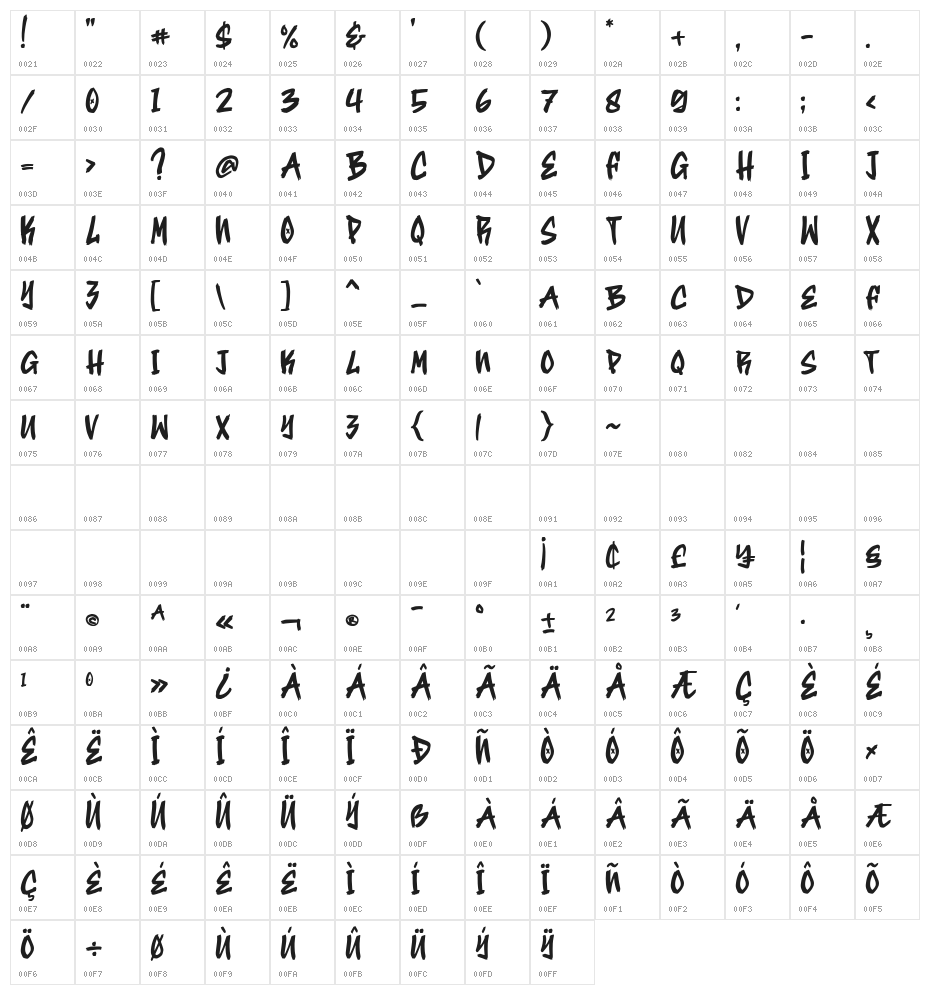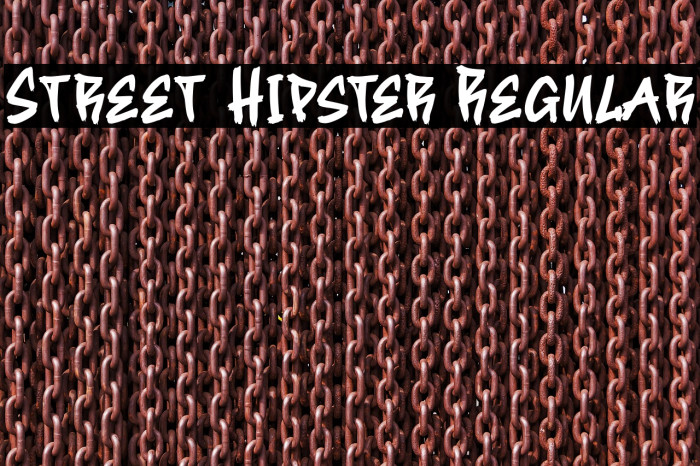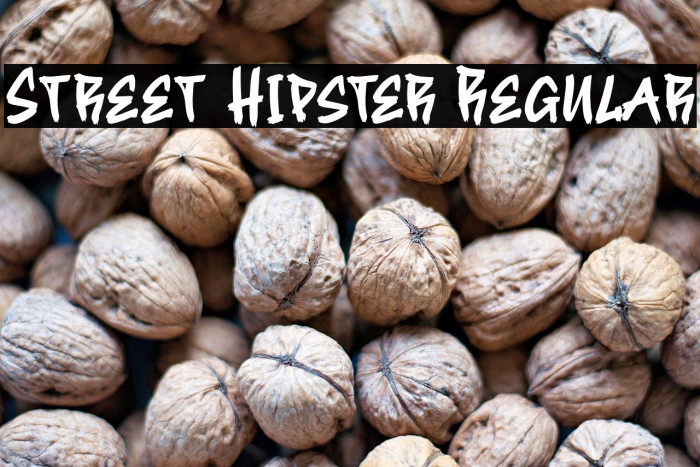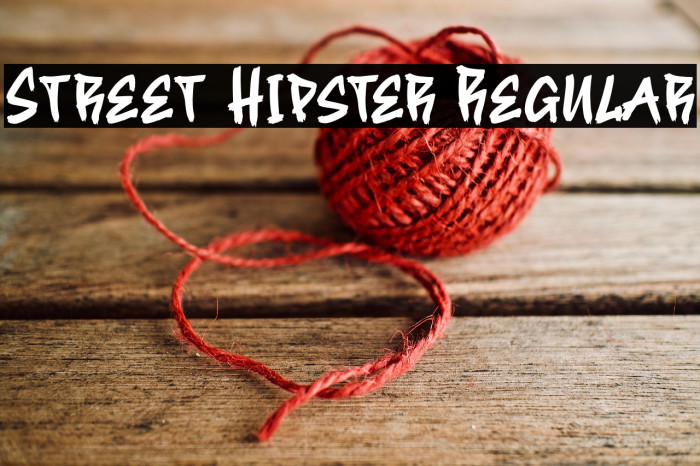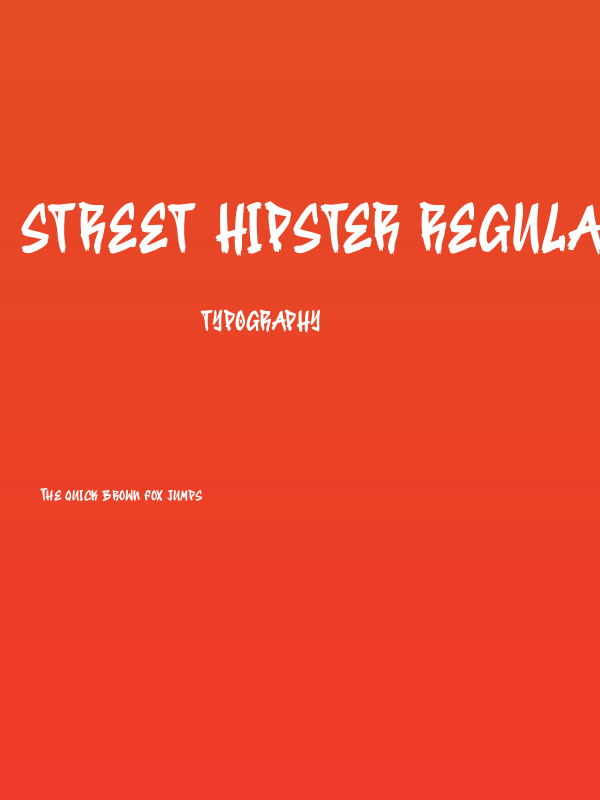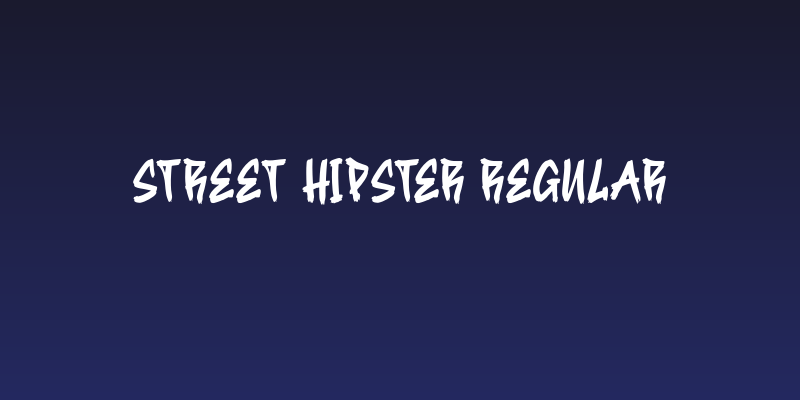
Street Hipster Regular Font
Street Hipster Regular Description
This font features a bold, energetic style with a hand-drawn appearance, reminiscent of street art and graffiti. The characters are thick and dynamic, with irregular edges that give them a raw, edgy feel. The uppercase and lowercase letters maintain a consistent style, while the numbers and special characters complement the overall aesthetic. The font's unique personality makes it stand out, ideal for projects that require a touch of urban flair and creativity.
| Overall Style | Urban, Edgy, Creative |
| Proposed Projects | Perfect for urban-themed designs, posters, album covers, and branding that requires a bold statement. |